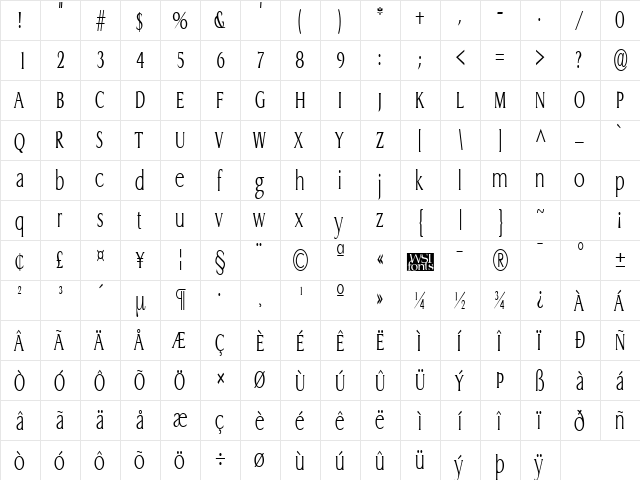
GriffonCondensedLight Regular Font Preview
Design Context for GriffonCondensedLight Typeface
GriffonCondensedLight takes a measured approach to typography — its balanced proportions and neutral character make it a reliable workhorse for both digital and print work. The delicate stroke weight brings airiness and refinement to layouts. Its narrow stance lets it pack a punch even in space-constrained designs.